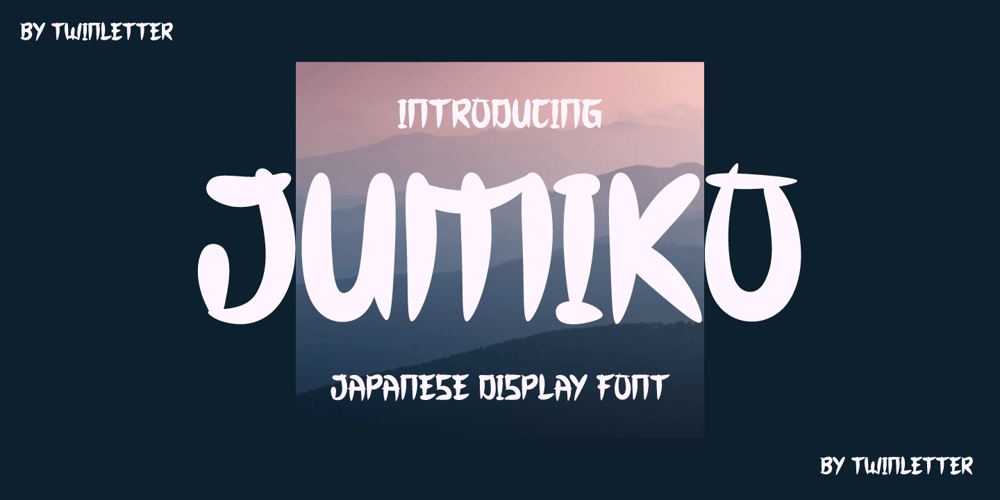
Jumiko Faux
Jumiko Faux font
Jumiko Faux Font Family was designed by Rozikan and published by Twinletter. Jumiko Faux contains 1 styles and family package options. Jumiko is a display typeface with a Japanese motif and a dramatic hand touch that results in a stunning and futuristic mix of words.You can simply use this font to make your project unique and memorable, making it stand out and easy to remember for everyone.Logotypes, food banners, branding, brochure, posters, movie titles, book titles, quotes, and more may all benefit from this font.Of course, using this font in your various design projects will make them excellent and outstanding; many viewers are drawn to the striking and unusual graphic display.Start utilizing this typeface in your projects to make them stand out.